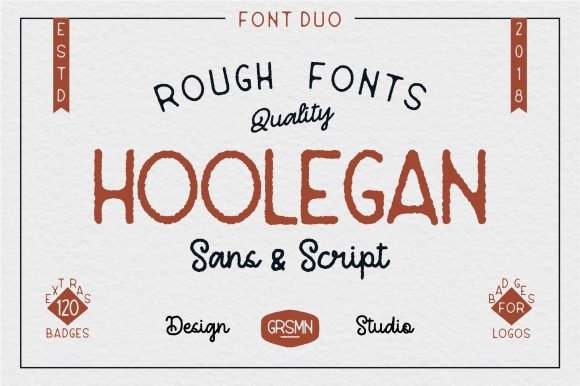
Unleash your creativity with Hoolegan Duo Font - the ultimate fusion of handwritten charm and rugged elegance. This dynamic font duo, meticulously crafted by Garisman Studio, brings a touch of raw beauty to your designs, making them stand out from the crowd.
Embark on a typographic adventure with Hoolegan, a font family that captures the essence of spontaneity and authenticity. Its rough patterns and expressive strokes add a mesmerizing depth to your creations, ensuring they leave a lasting impression.
Whether you're a seasoned designer or just starting your journey into the world of typography, Hoolegan has something to offer. Its versatility knows no bounds, making it perfect for both print and web projects. Craft eye-catching logos, captivating social media posts, stunning website headers, and more - the possibilities are endless.
But here's what truly sets Hoolegan apart: its ability to evoke emotions and create connections. With its organic, handwritten style, Hoolegan adds a personal touch to your designs, making them relatable and engaging. It's like sending a handwritten letter in the digital age - a reminder of the human touch in a world of automation.
And to sweeten the deal, Hoolegan comes with an incredible bonus - a collection of over 100 meticulously designed badge templates. These versatile templates are the perfect finishing touch to your designs, adding a unique and professional touch that will elevate your work to new heights.
Don't let your designs blend into the background. Choose Hoolegan Duo Font and embrace the power of individuality. Its captivating charm and undeniable charisma will transform your projects into masterpieces that resonate with your audience.
So, dive into the world of Hoolegan Duo Font today and unlock the true potential of your creativity. Let your designs speak volumes, captivate hearts, and make a statement that will leave an indelible mark.